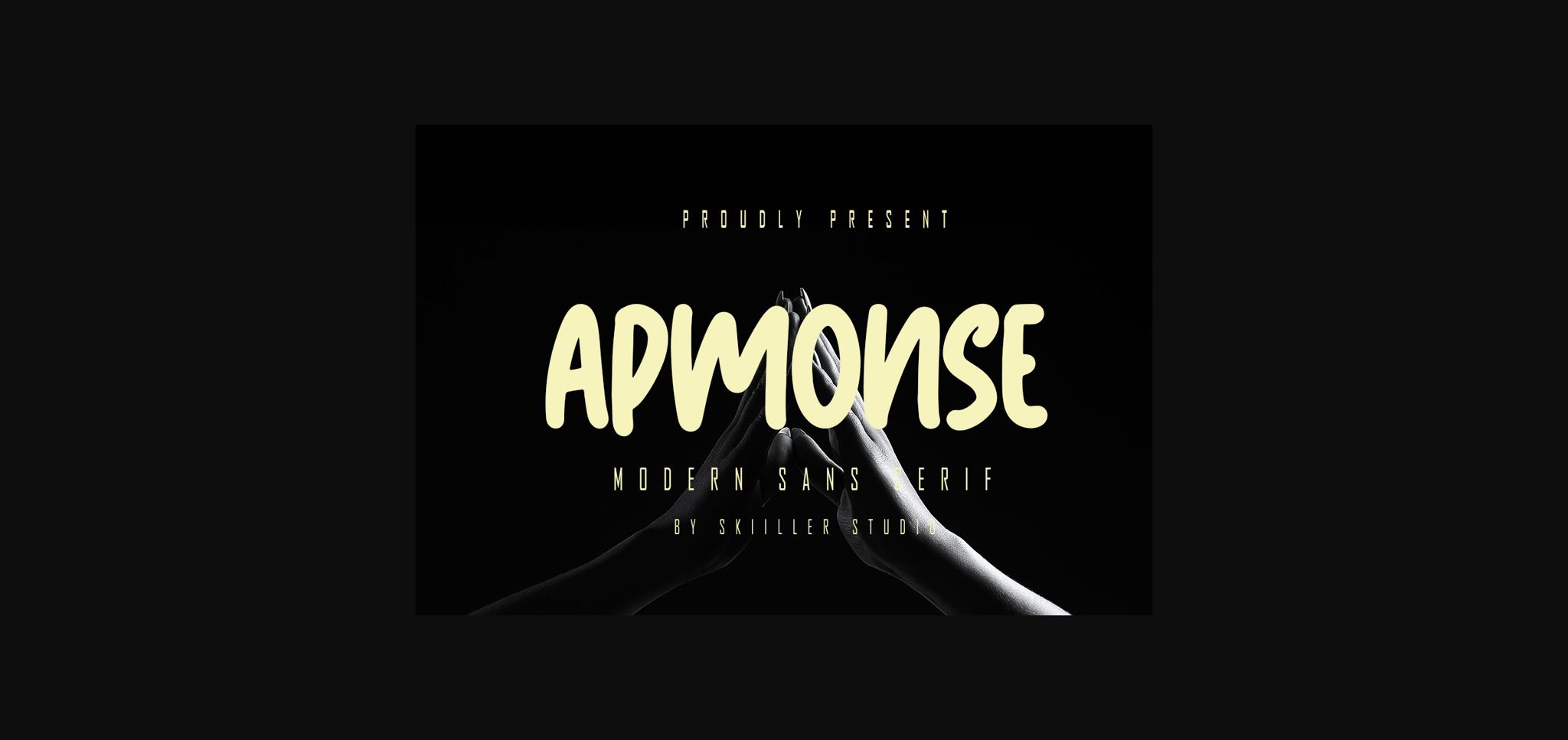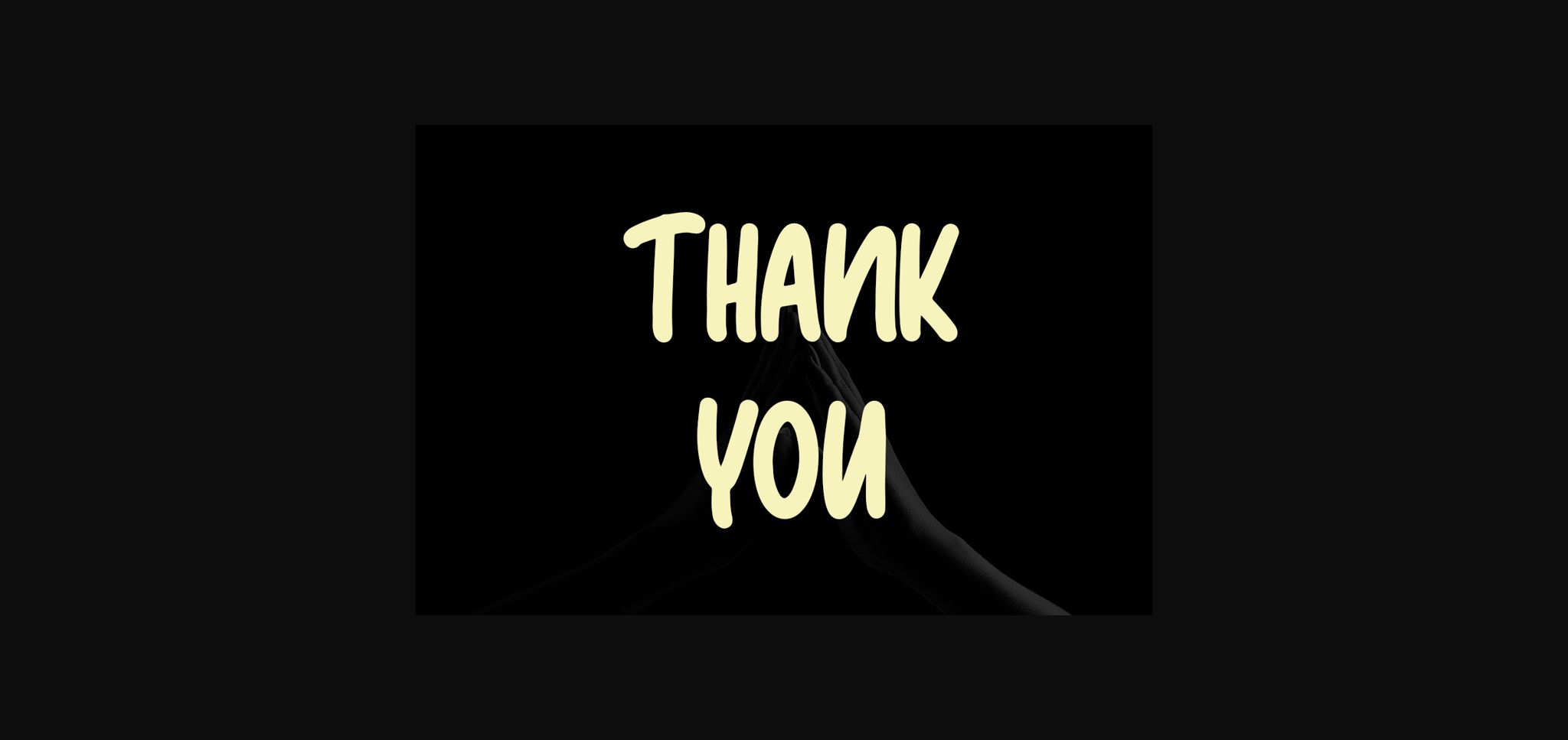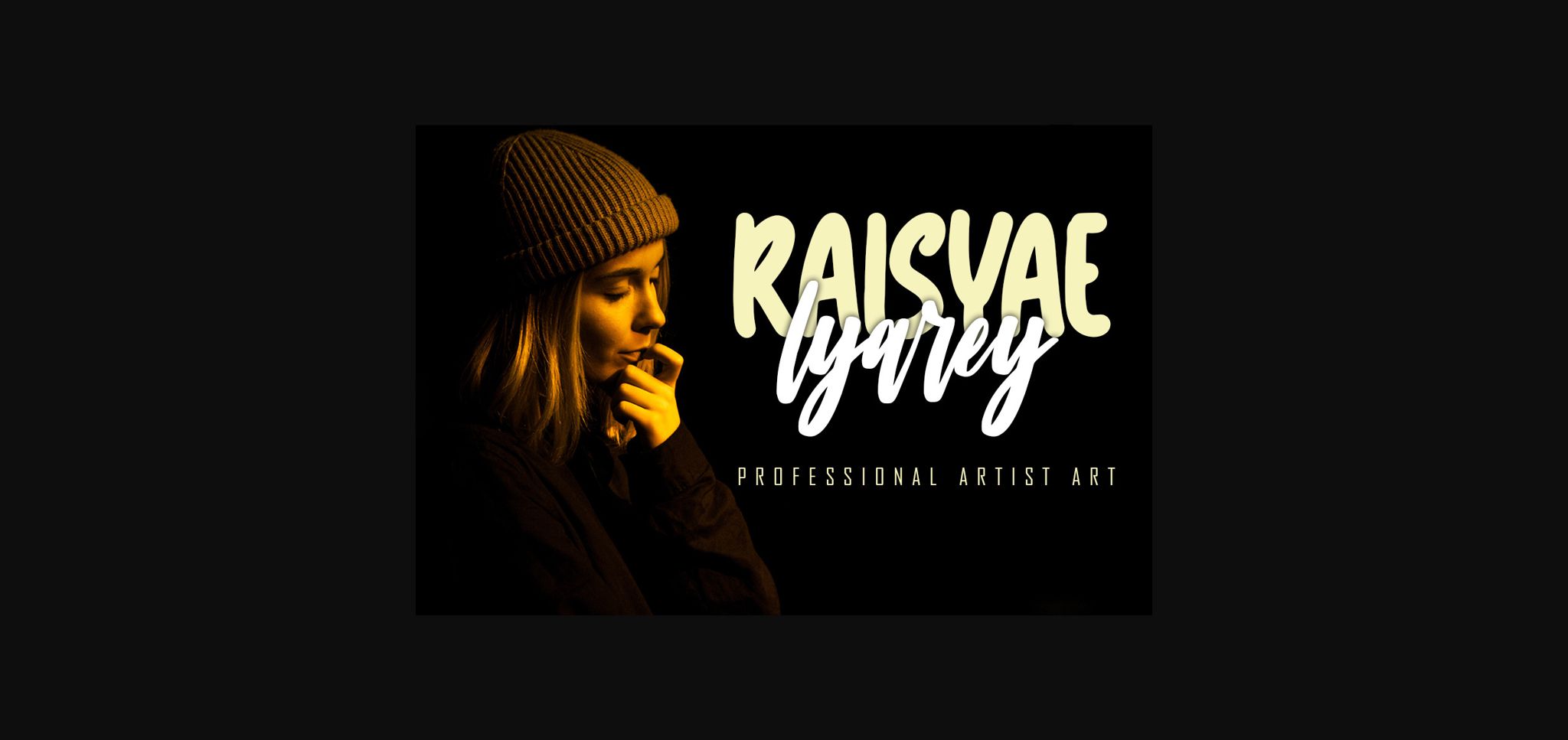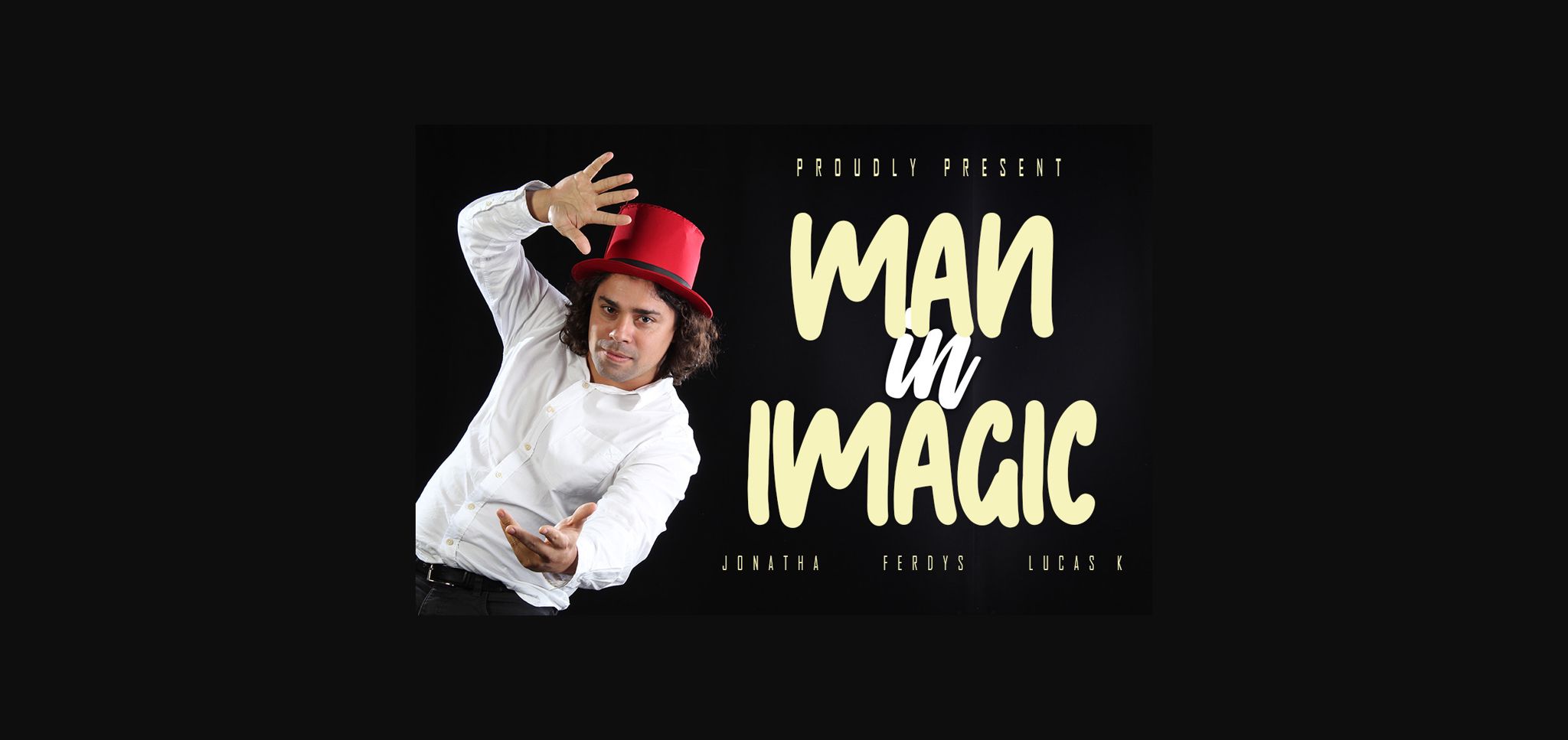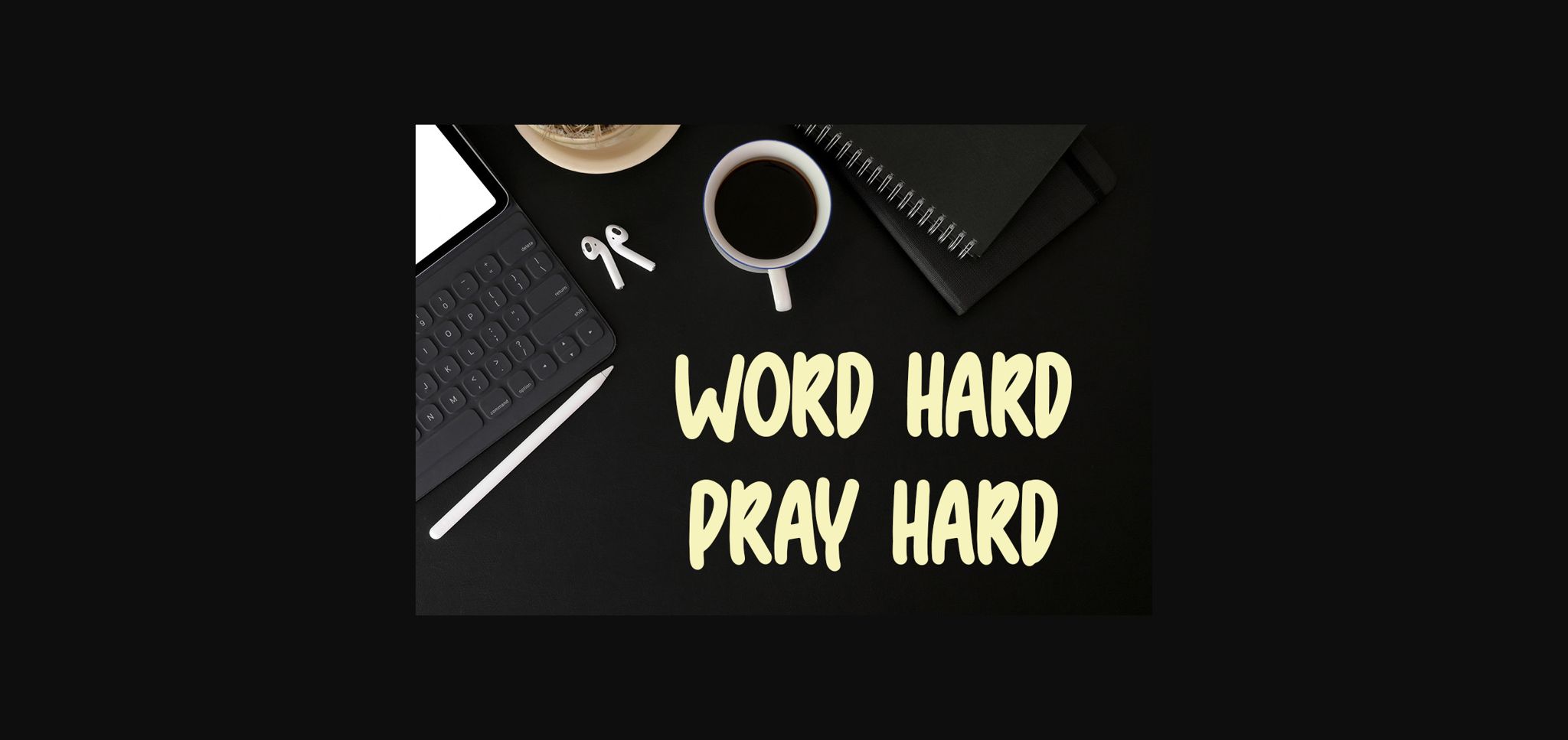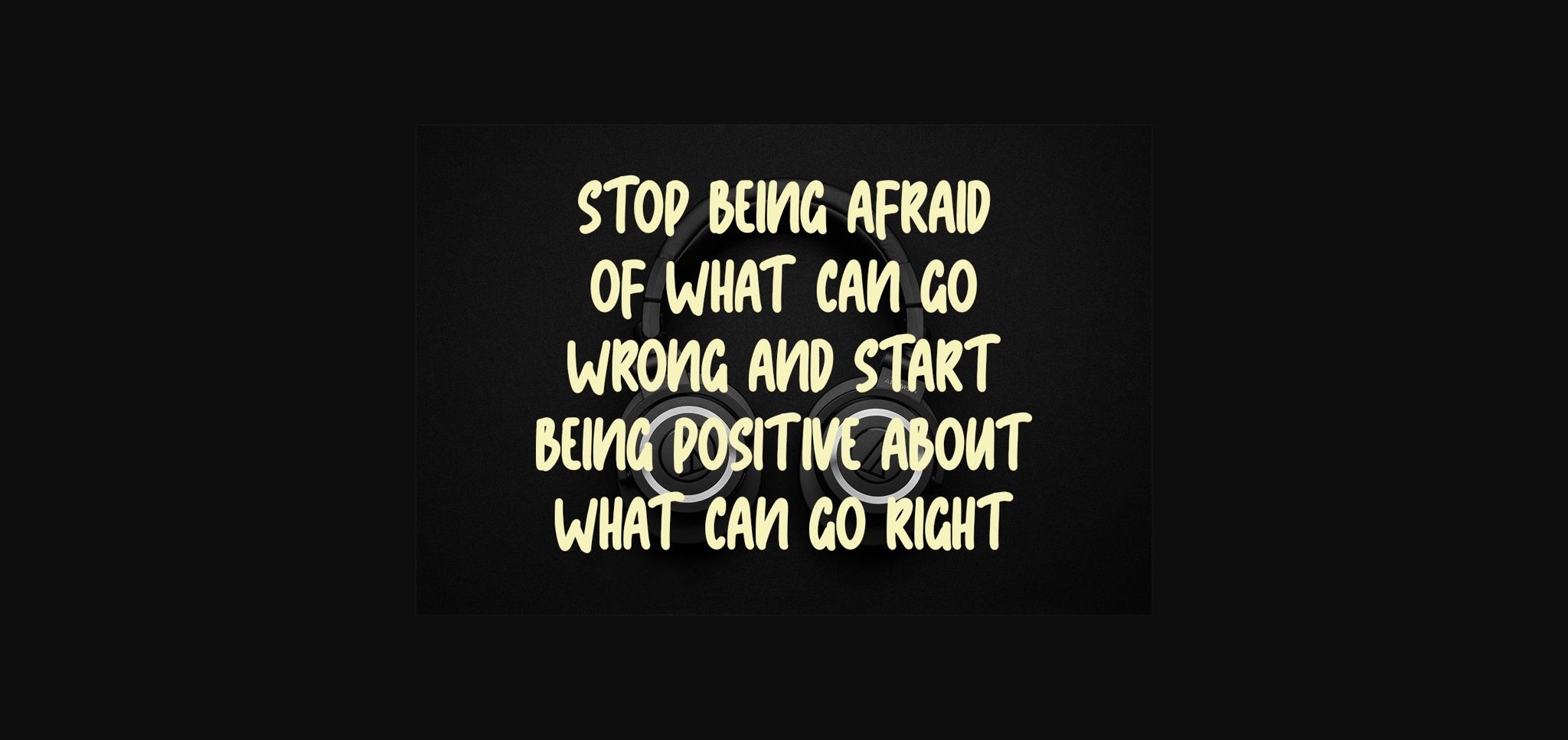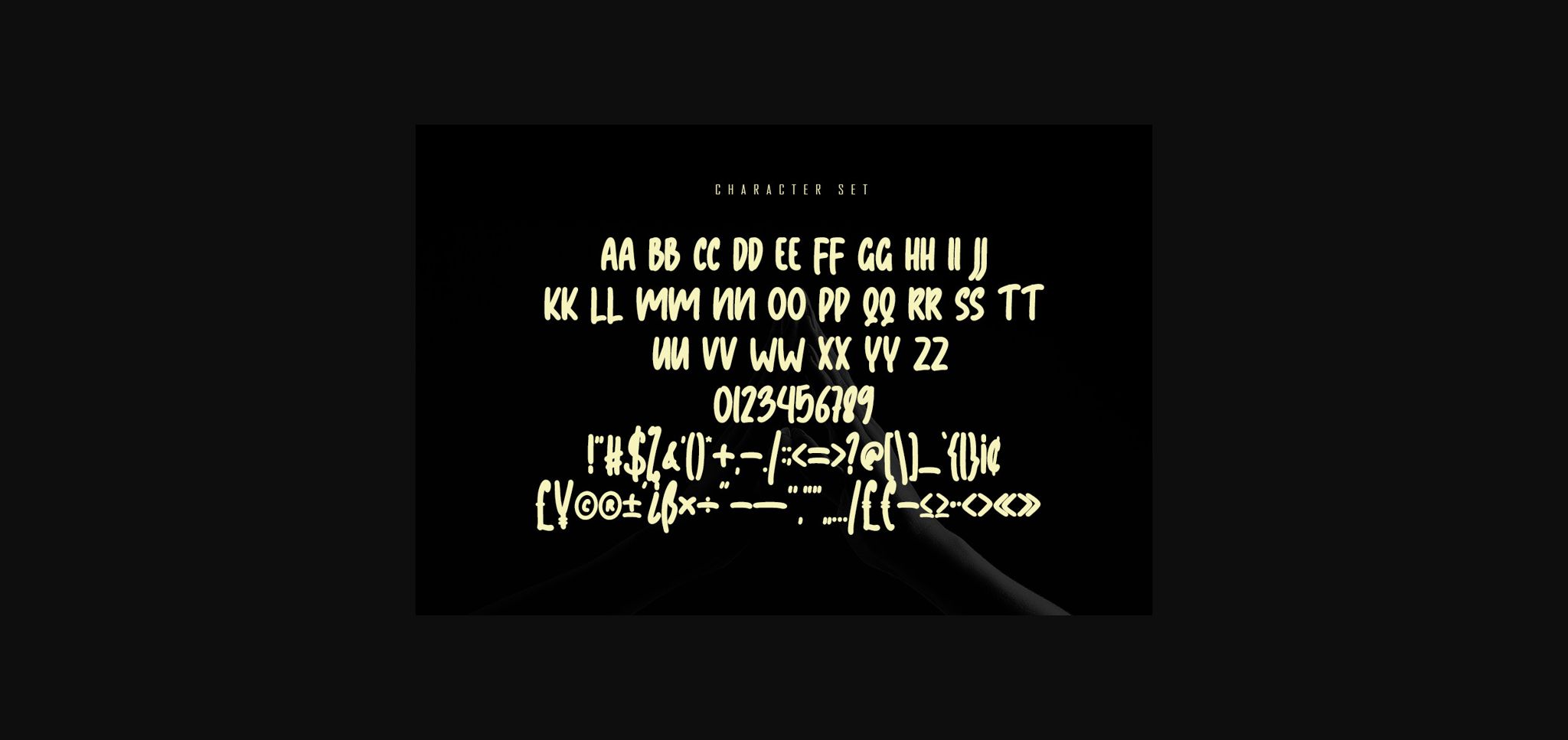
Apmonse Font
About Apmonse Font
Apmonse is a unique and elegant handwritten sans serif font. It looks beautiful on a variety of designs requiring a personalized style.